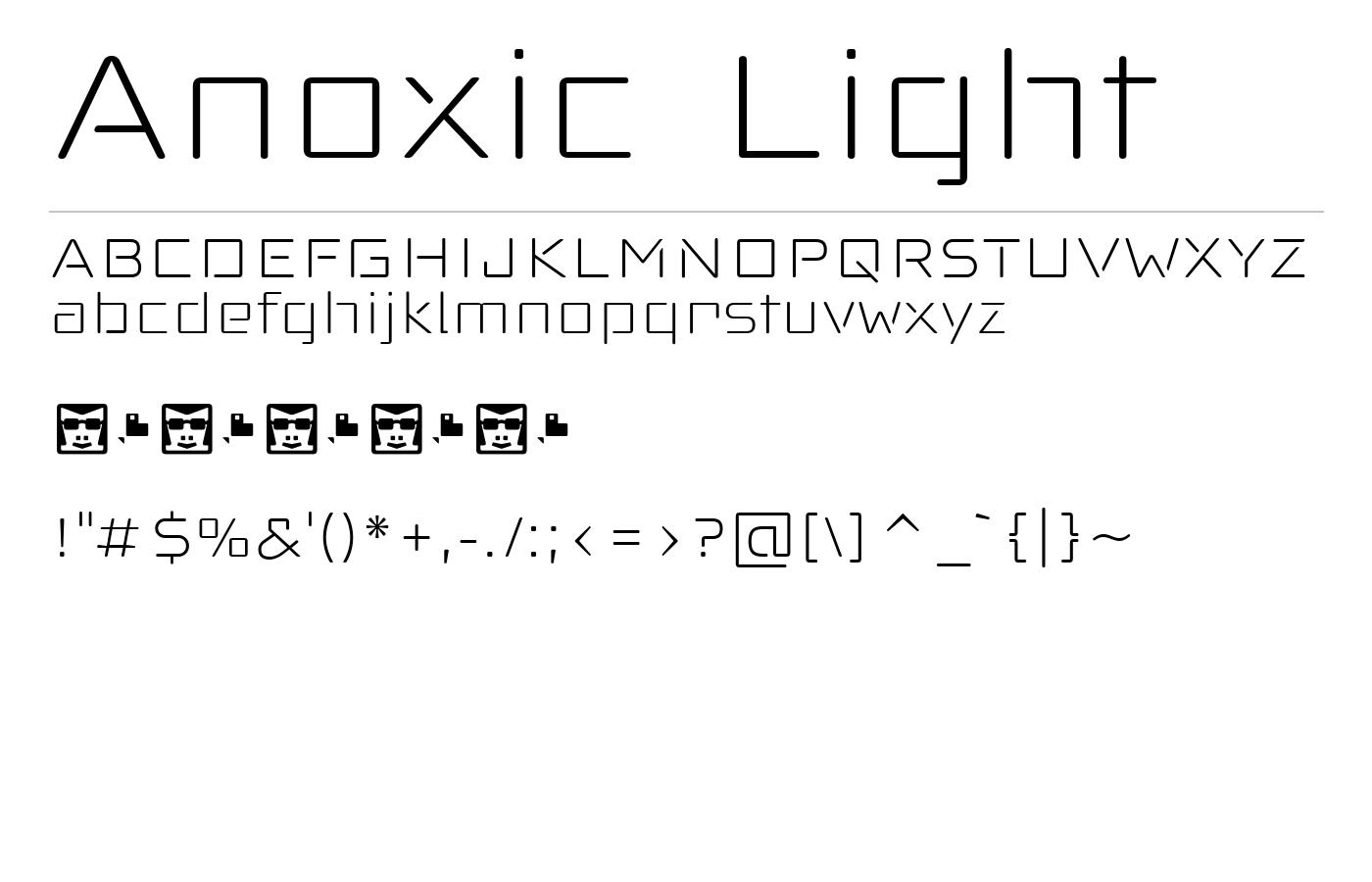
Anoxic Light is a sleek, modern sans serif font characterized by its thin, geometric lines and a futuristic, minimalist aesthetic. Its narrow letterforms and moderate x-height lend it a clean, tech-forward look that works well in digital interfaces, branding for innovative companies, and contemporary editorial design. This font’s precise construction and subtle angular details give it a sharp, sophisticated personality suited for conveying cutting-edge and forward-thinking brands.
Anoxic Font
About Anoxic Font